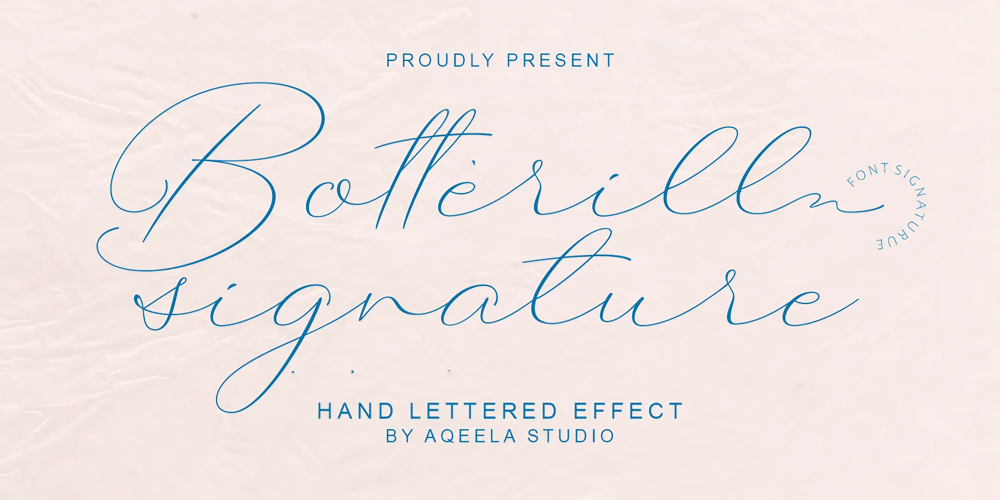
Botterill Signature Font Family was designed by Muhammad Nasir and published by Aqeela Studio. Botterill Signature contains 1 styles and family package options. Botterill Signature is a beautiful signature font. It was made to meet your needs in creating elegant designs.This natural font is perfect for branding, wedding invitations, magazines, mugs, business cards, quotes, posters, and more!To enable OpenType Stylistic changes, you need a program that supports OpenType features such as Adobe Illustrator CS, Adobe Indesign & CorelDraw X6-X7, Microsoft Word 2010 or newer versions.Botterill Signature is coded with Unicode PUA, which allows full access to all additional characters without having to design special software. Mac users can use the Font Book, and Windows users can use the Character Map to view and copy one of the additional characters to paste into your favorite text editor / application.Thank you